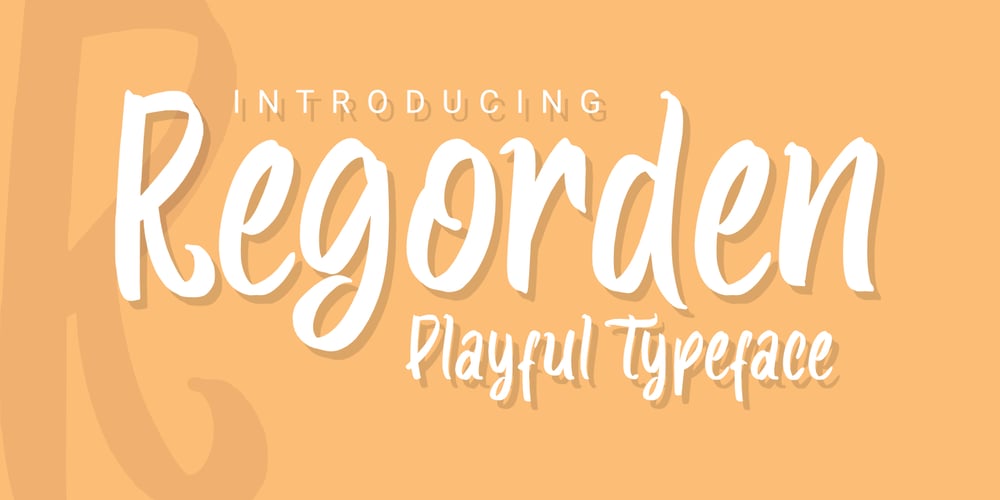
Regorden Font Family was designed by Toni Dzulham and published by Dumadi. Regorden contains 1 styles and family package options. Regorden – Playful Typeface is a casual font made wholeheartedly for designers to improve their designs and perfect their projects.Regorden – Playful Typeface is perfect for designs, logos, social media, brands, advertisements, product designs, handwritten quotes, product packaging, headers, posters, merchandise, and other designs.What’s Included:+ Standard glyph+ Web Fonts+ Multilingual Accent+ Works on PC & Mac, Simple installationAccessible in Adobe Illustrator, Adobe Photoshop, Adobe InDesign, even works in Microsoft Word. PUA Coded Characters – Fully accessible without additional design software. Fonts include multilingual support+ Images used: All photos/images/vectors used in the preview are not included, are meant for illustration purposes only.Thank You